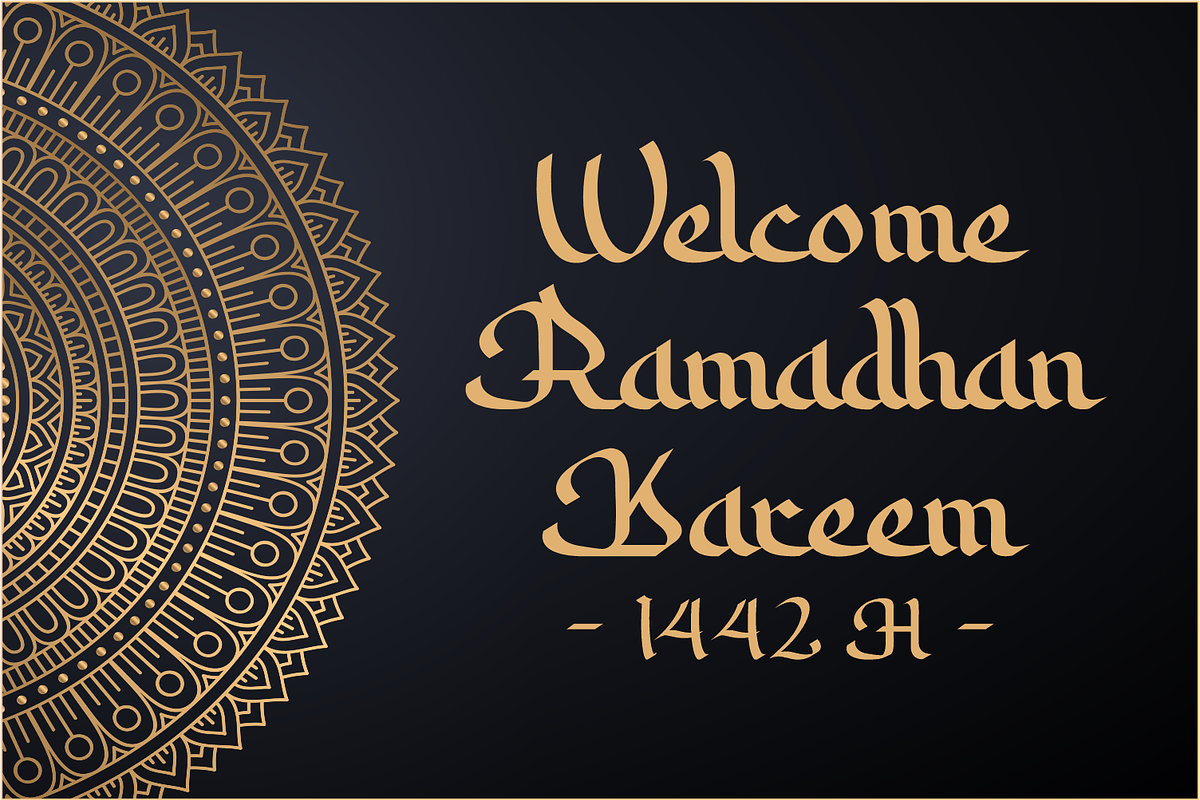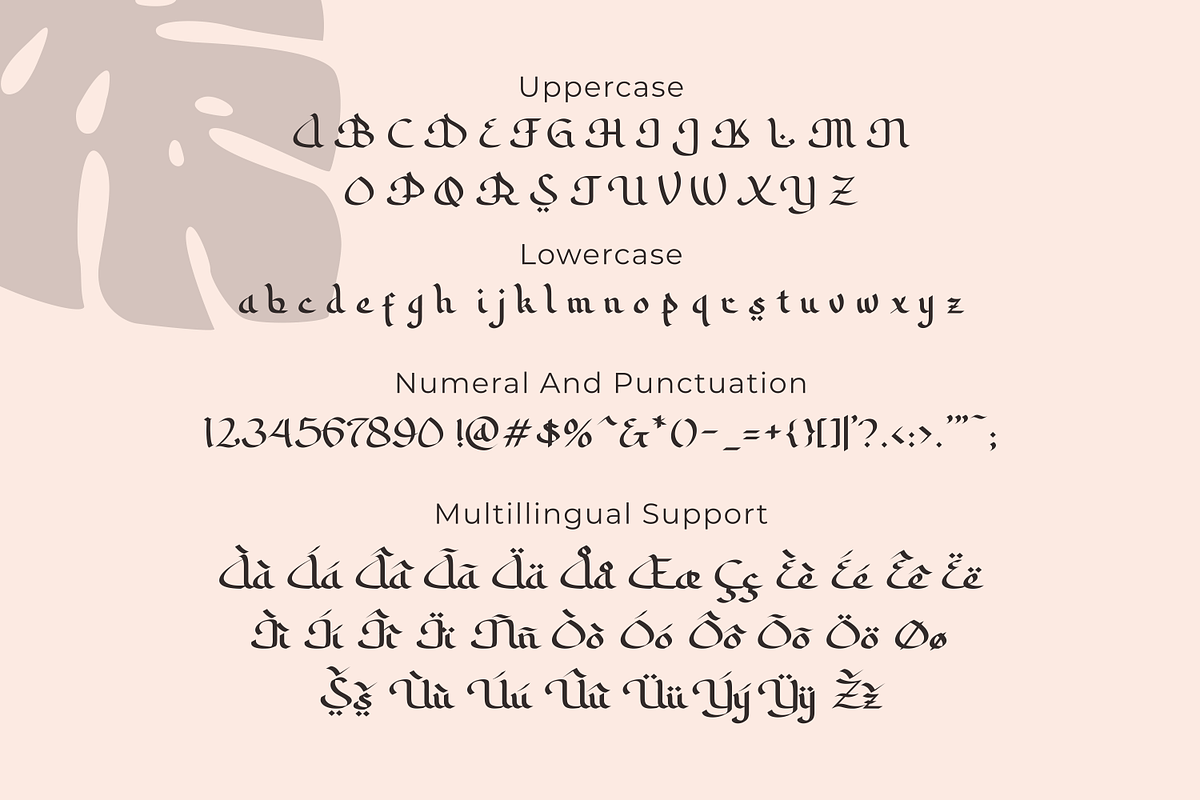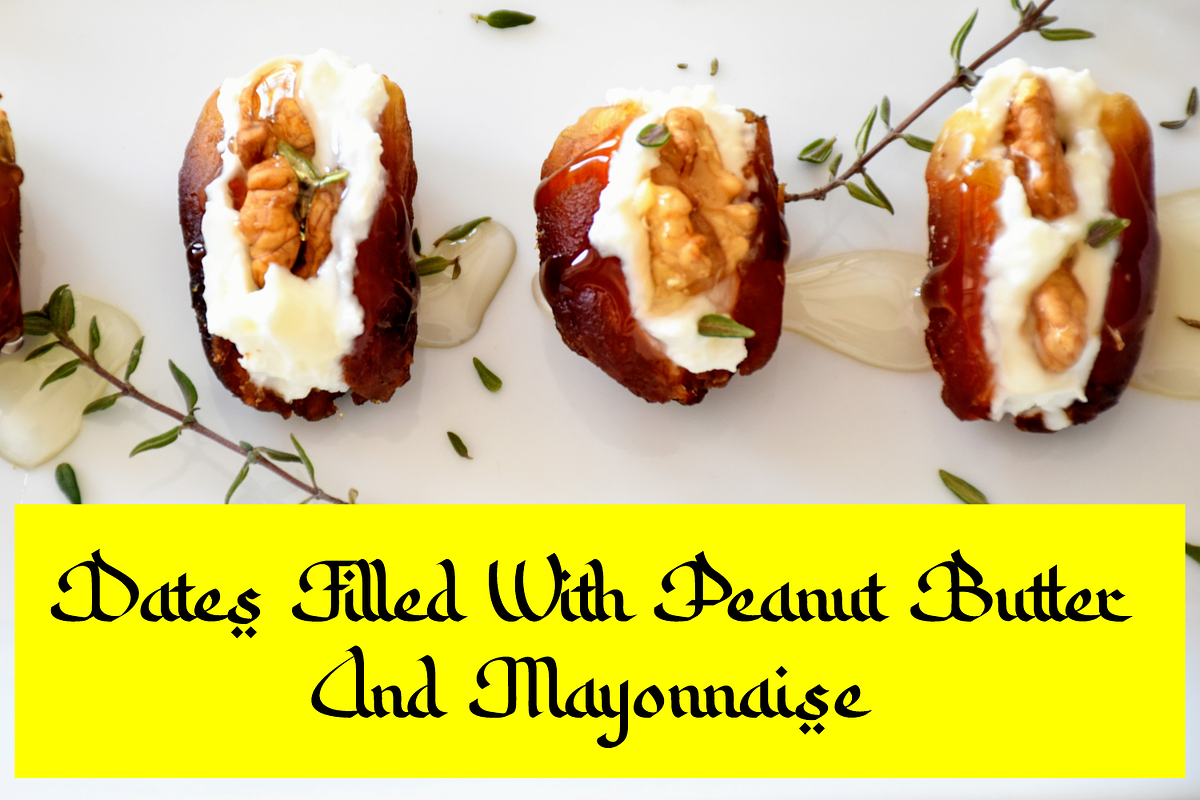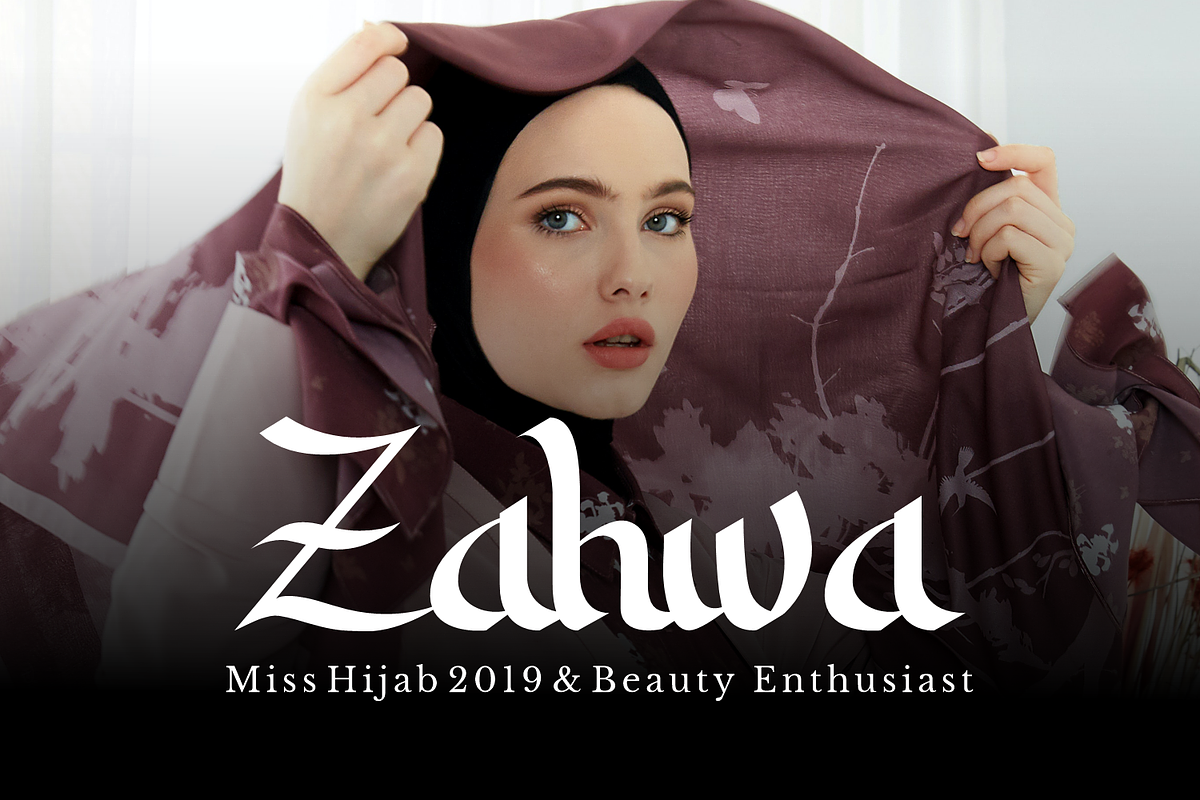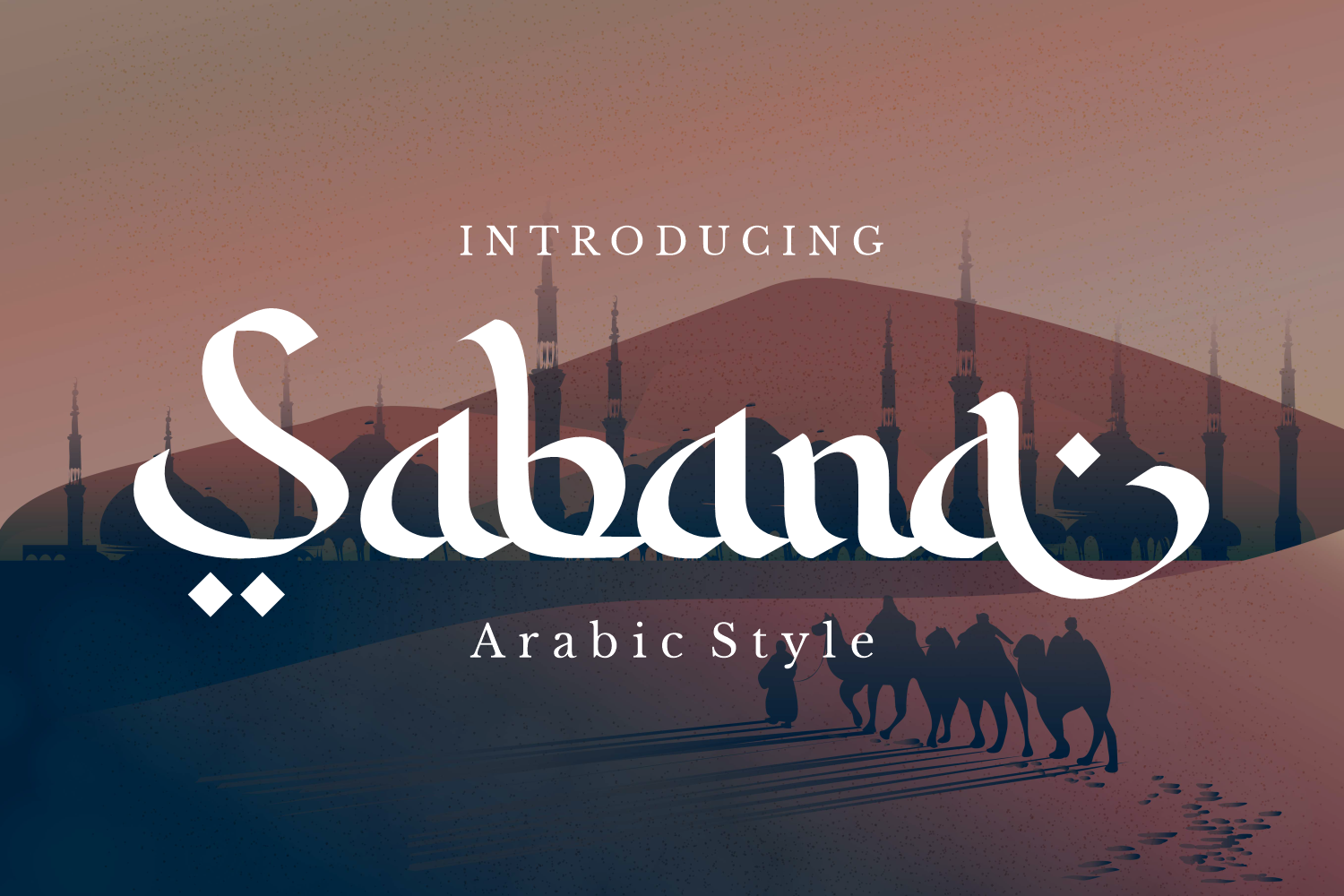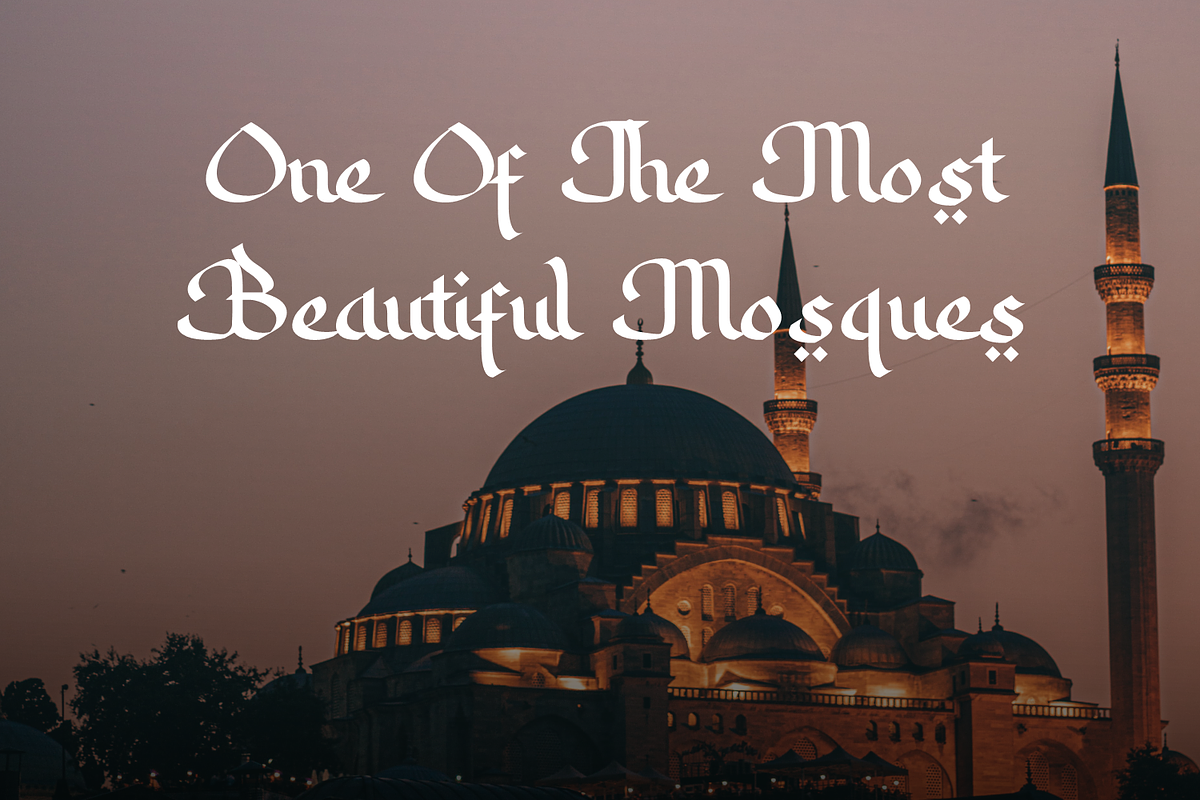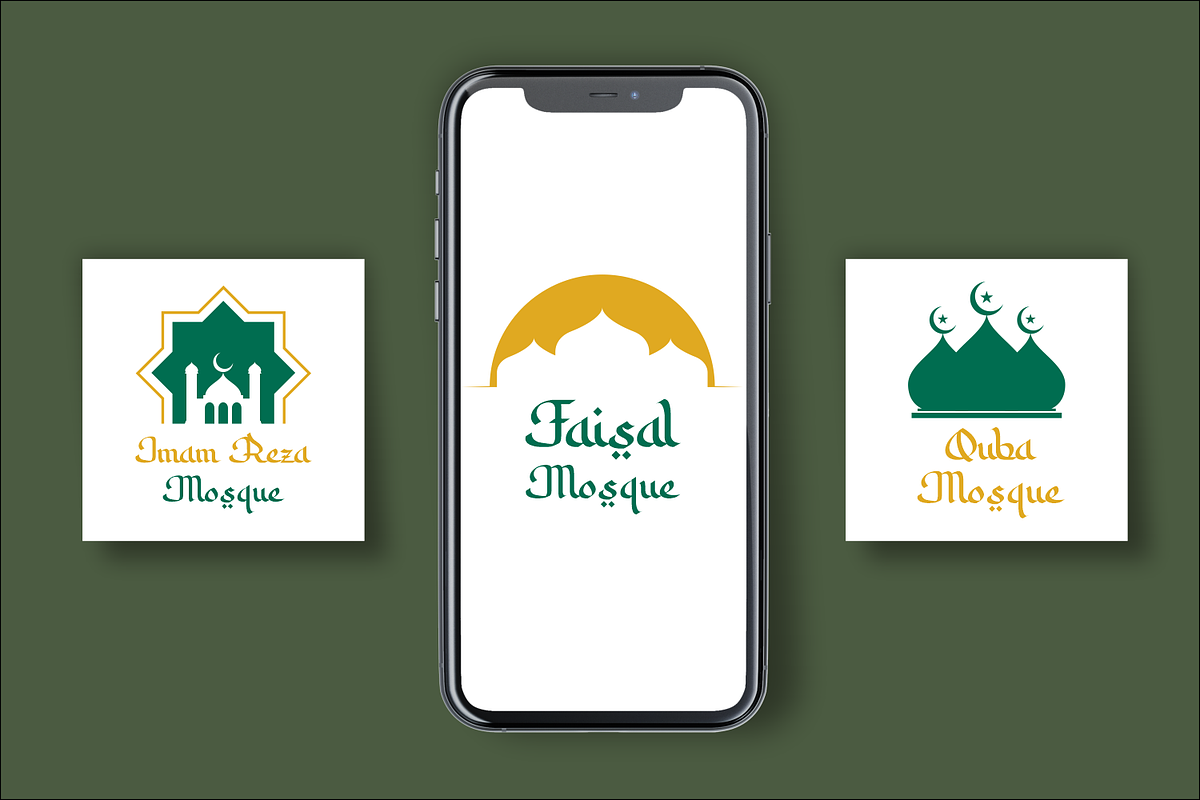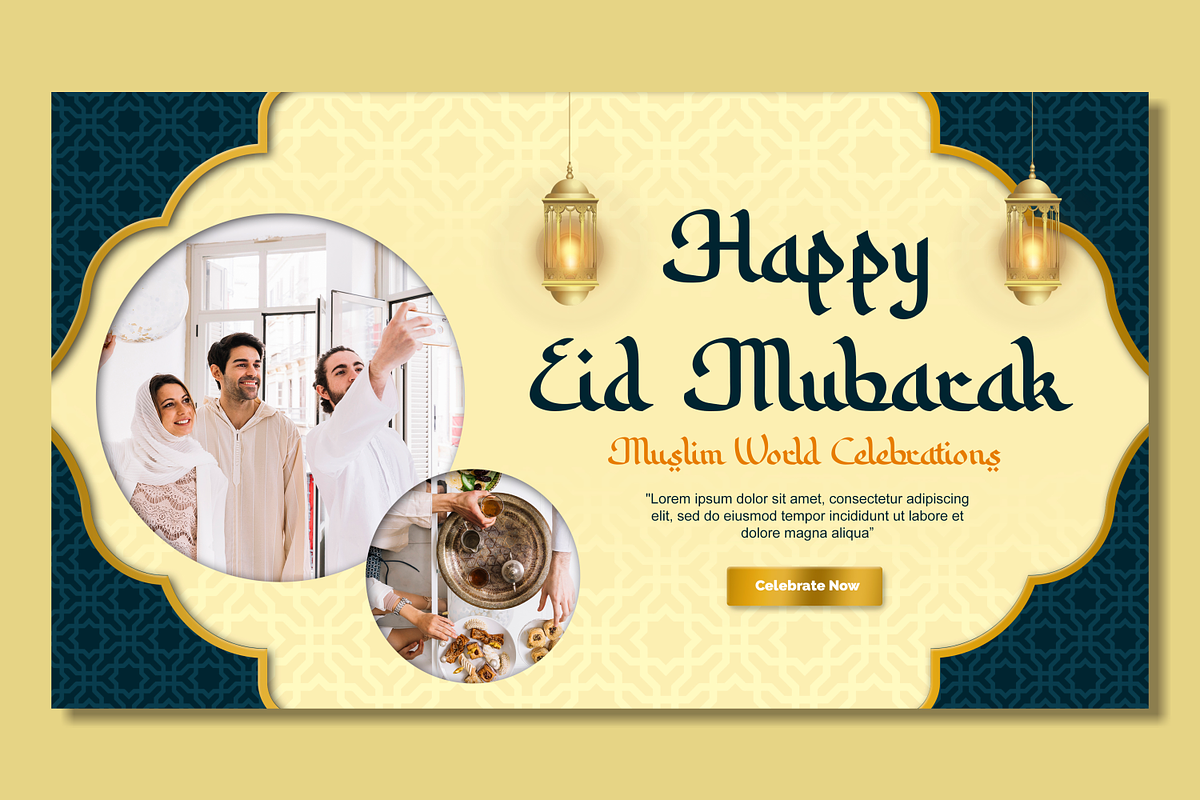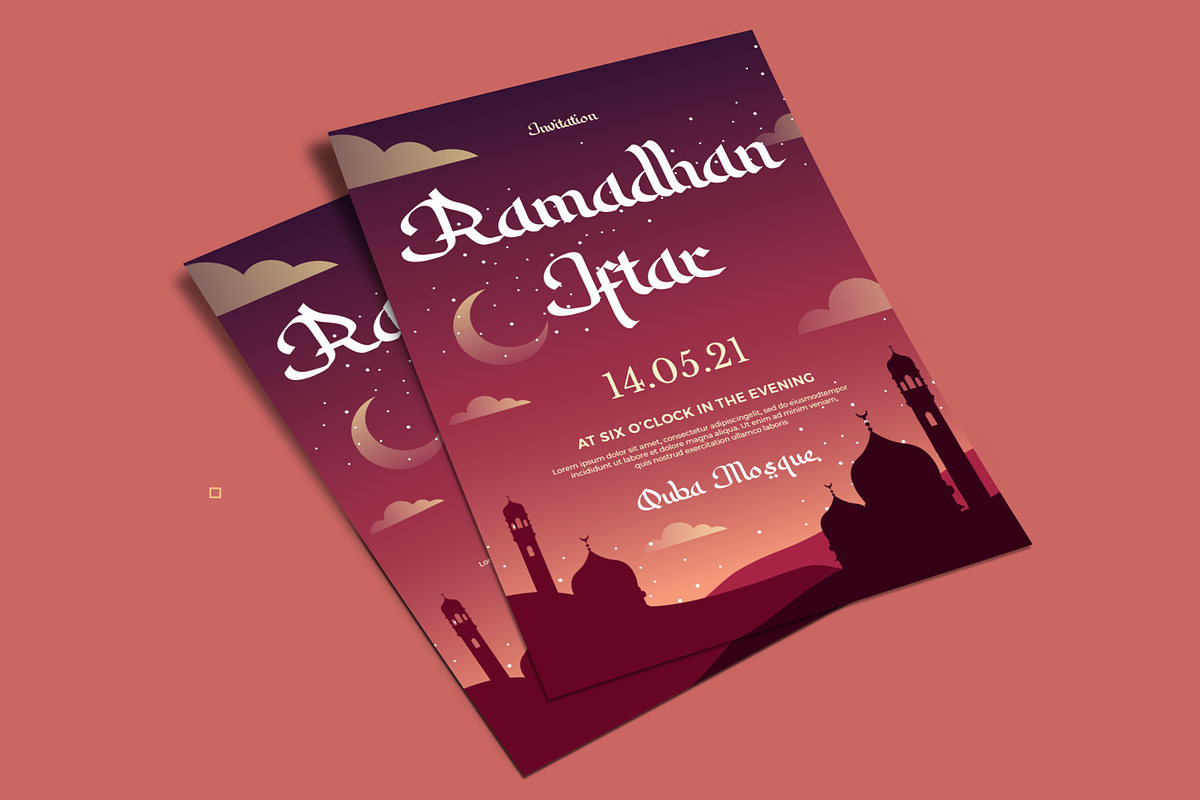
Sabana, an Arabic Style Font
Sabana, an arabic style typography that is suitable for ramadan project. The feels of Islamic characters of this font will be great for your project. It must be perfect for Ramadan Kareem greeting card and it's kind.